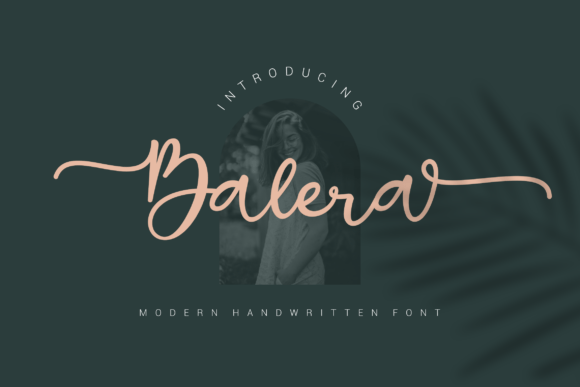
The Art of Handwritten Expression
Imagine you’re at a quaint café, sipping a warm latte, and the barista writes your name on a beautiful card with a flourish of their pen. That’s the kind of magic you can create with the right font. The Balera Font is a modern handwritten script that brings a touch of elegance and sophistication to any design project.
This versatile font is perfect for designers who want to add a personalized touch to their work. From wedding invitations to business cards, the Balera Font is an ideal choice for anyone looking to create a customized and stylish design. Its natural, flowing style makes it a valuable asset for designers who want to stand out from the crowd.
Key Features of Balera Font
- Unique Characteristics: The font features a unique blend of modern and vintage elements, with intricate details and ornate flourishes, making it perfect for creative and artistic projects.
- Language Support: Balera Font supports a wide range of languages, including Latin, Cyrillic, and Greek alphabets, making it a versatile choice for international designs.
- Kerning and Ligatures: The font includes advanced kerning and ligature pairs, ensuring smooth and even text flow, even at small font sizes.
Review of Balera Font
Overall, I think the Balera Font has a lot going for it. The design is elegant and sophisticated, making it perfect for high-end branding and design projects. ✨ The clean lines and subtle curves give it a classic feel that’s both timeless and versatile.
The font’s versatility is one of its strongest points. It comes in a range of weights and styles, from light and delicate to bold and dramatic. ✨ This makes it easy to use in a variety of contexts, from body text to headings and titles. The font also has excellent legibility, making it easy to read even at small sizes.
- ⚠️ Limited expressiveness: While the font is elegant and sophisticated, it may not be the best choice for projects that require a lot of personality or flair.
- ⚠️ May not be suitable for low-contrast designs: The font’s subtle curves and lines may get lost in designs with low contrast, making it harder to read.
- ⚠️ Not ideal for bold, attention-grabbing headlines: While the font is bold and dramatic in certain weights, it may not be the best choice for headlines that need to grab attention.
Overall, I think the Balera Font is a solid choice for designers who want a sophisticated and elegant font for their projects. While it may have some limitations, it’s a great option for high-end branding and design projects.